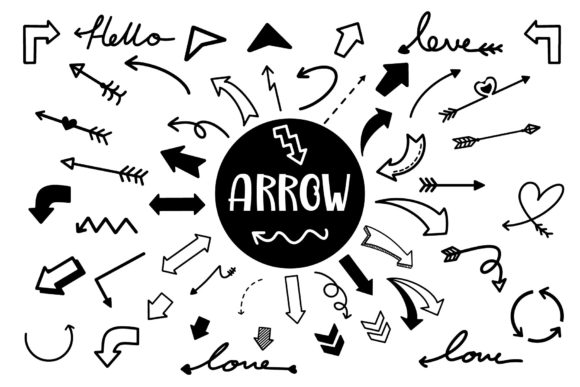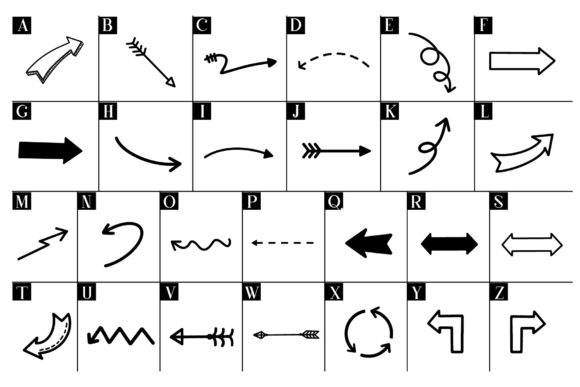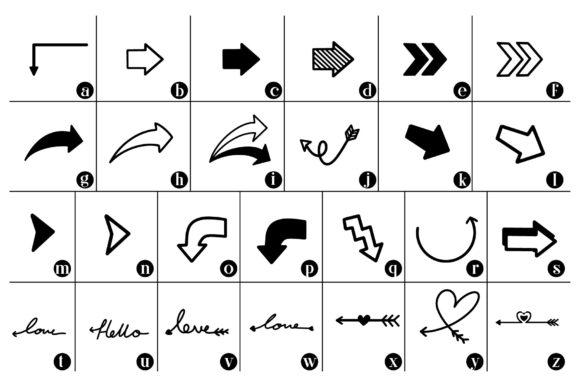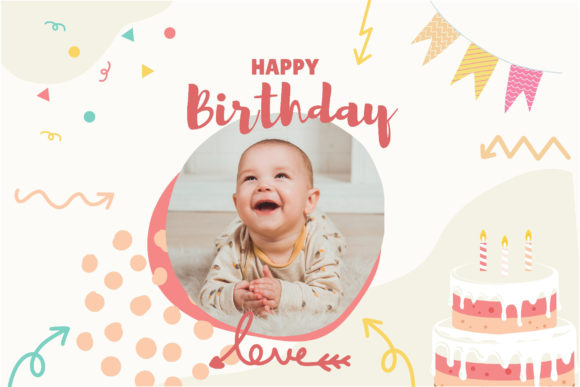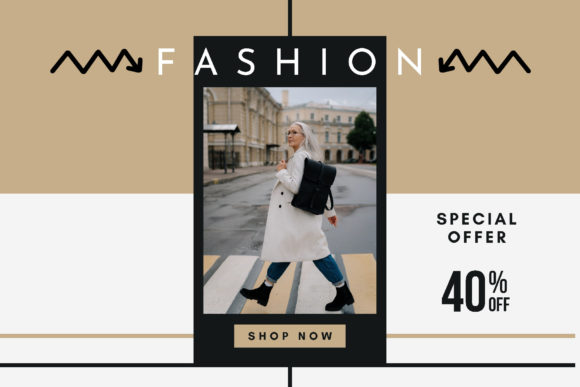
Arrow Font
About Arrow Font
Arrows Dingbats is a beautiful and unique dingbats font that’s designed to help you generate a large range of distinct arrow glyphs. The font includes a set of unique arrow glyphs that can be combined to create custom designs.
One of the best things about Arrows Dingbats is its versatility. The font can be used for a wide range of projects, from designing professional-looking logo designs to adding a touch of elegance to decorative patterns, bullet points to lists, or more. The font’s distinctive and stylish arrow glyph style makes it perfect for projects that need a touch of precision, and the font’s customizable nature makes it an excellent choice for designers who want to add a custom touch to their designs.
Another great thing about Arrows Dingbats is how easy it is to use. With a few keystrokes, users can create a wide range of beautiful arrow glyphs. The font includes clear, concise instructions to help users get started quickly, and the font’s easy-to-follow design makes it easy to generate custom arrow glyph designs without having to spend a lot of time learning new skills.
In addition to its ease of use and versatility, Arrows Dingbats is also just a stylish and classy font. The font’s unique and elegant arrow glyph characters set it apart from other dingbats fonts, making it a perfect choice for designers who want to set their designs apart from the competition.
Overall, Arrows Dingbats is a brilliant and unique dingbats font that’s perfect for a wide range of precision and elegant projects. Whether you’re designing professional-looking logo designs, adding a touch of elegance to decorative patterns, bullet points to lists, or more, Arrows Dingbats is an easy-to-use and intuitive font that anyone can use to create custom arrow glyph designs. The font’s distinctive and stylish arrow glyph style makes it a perfect choice for projects that need a touch of precision, and it’s a great tool for those who want to create standout and memorable designs that set their projects apart from the competition.